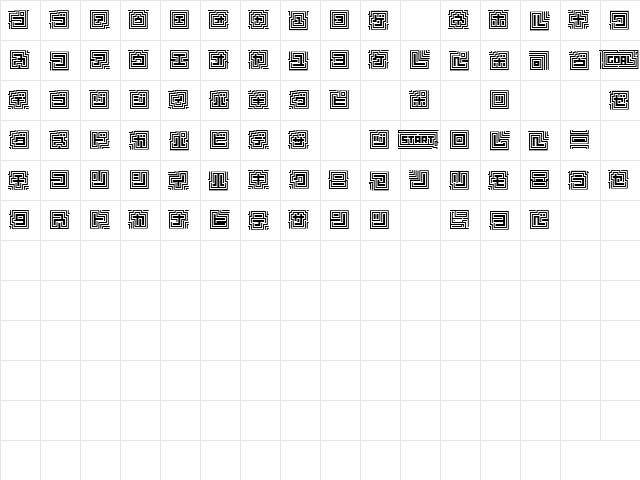
D3 Labyrinthism katakana Regular
Design Context for D3 Labyrinthism katakana Typeface
D3 Labyrinthism katakana is a composed and adaptable typeface that performs quietly and consistently across a wide range of design contexts.
Pro Tip: Use D3 Labyrinthism katakana in both headline and body roles to test its range before committing to a single application.